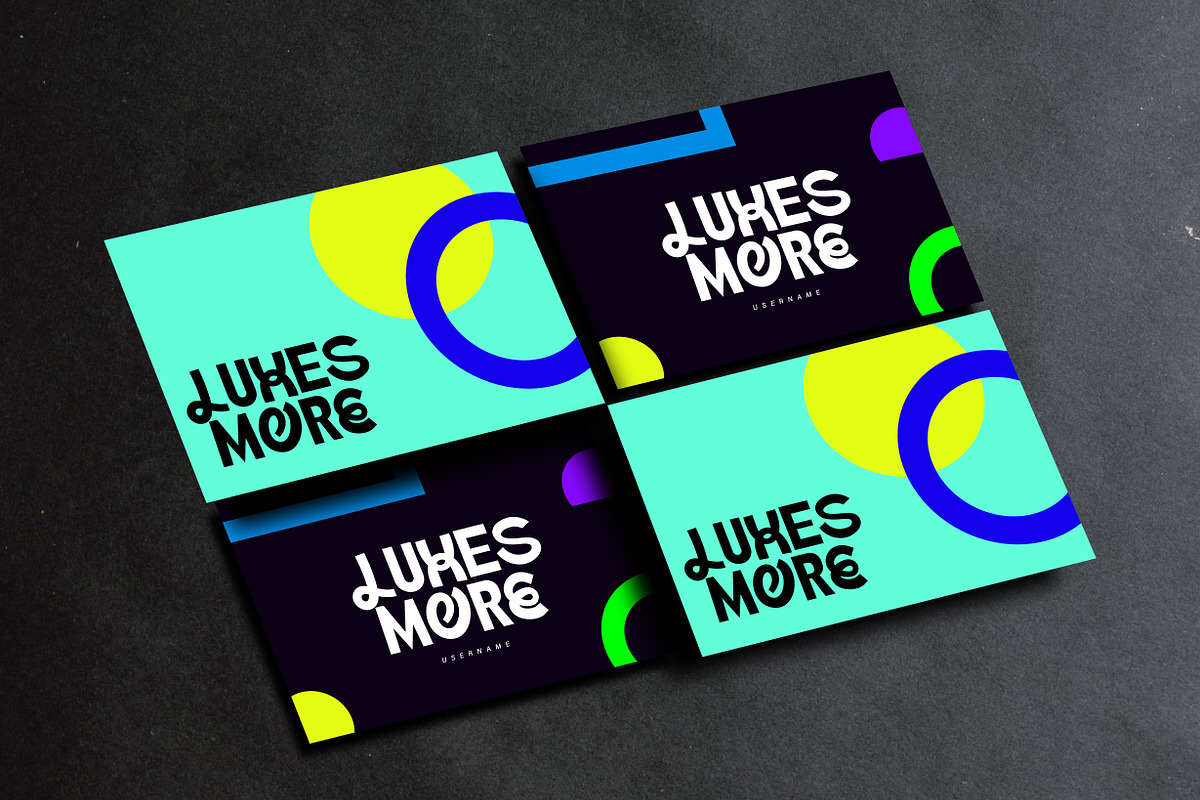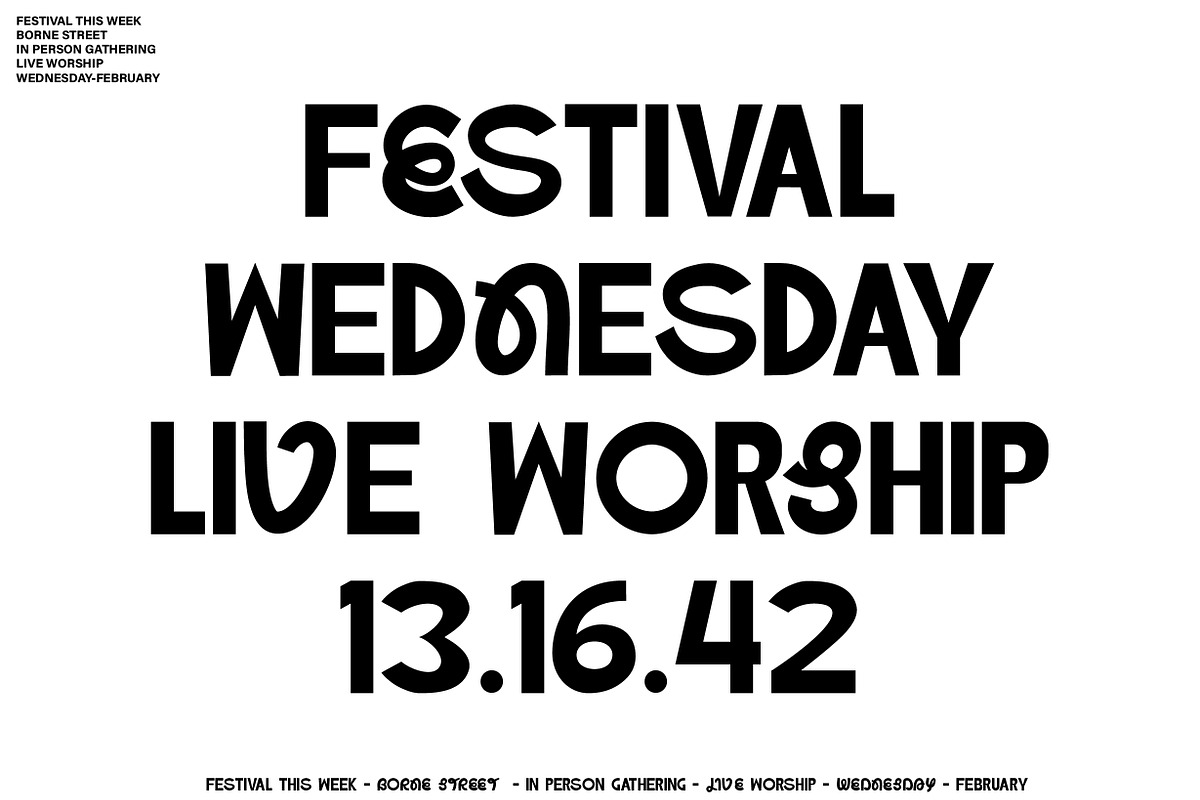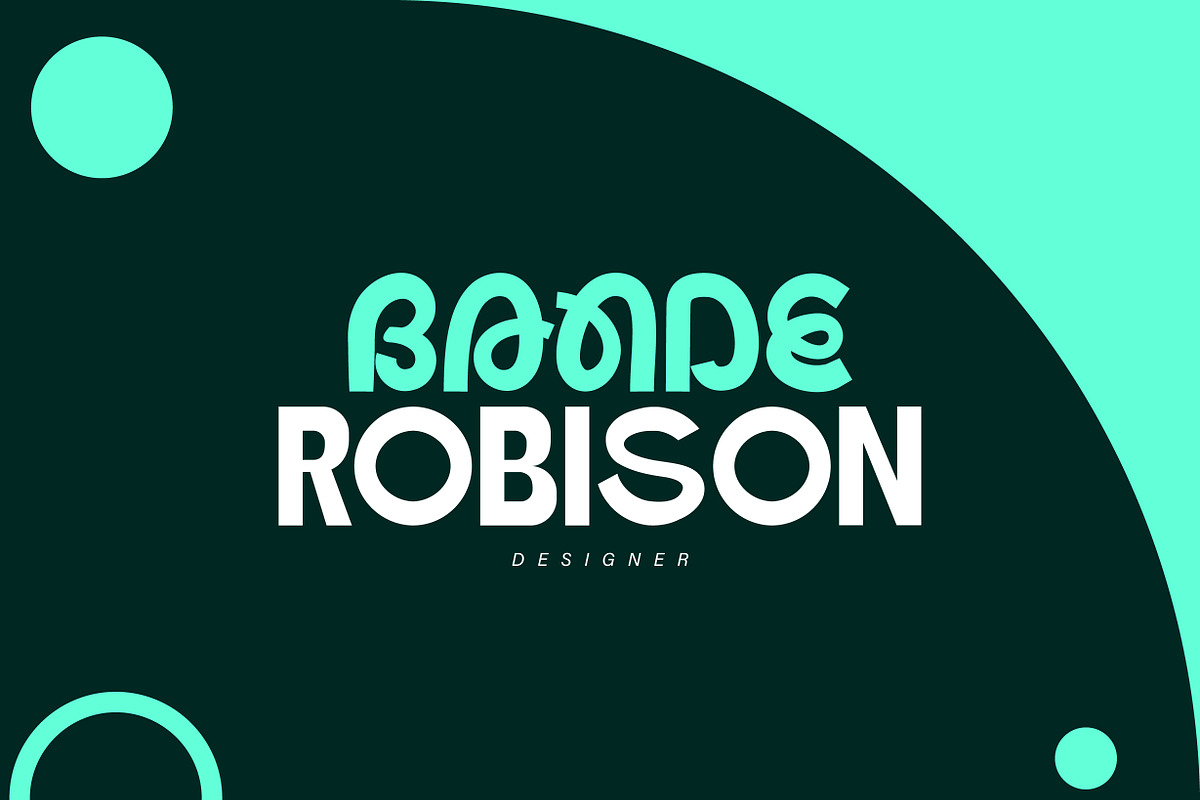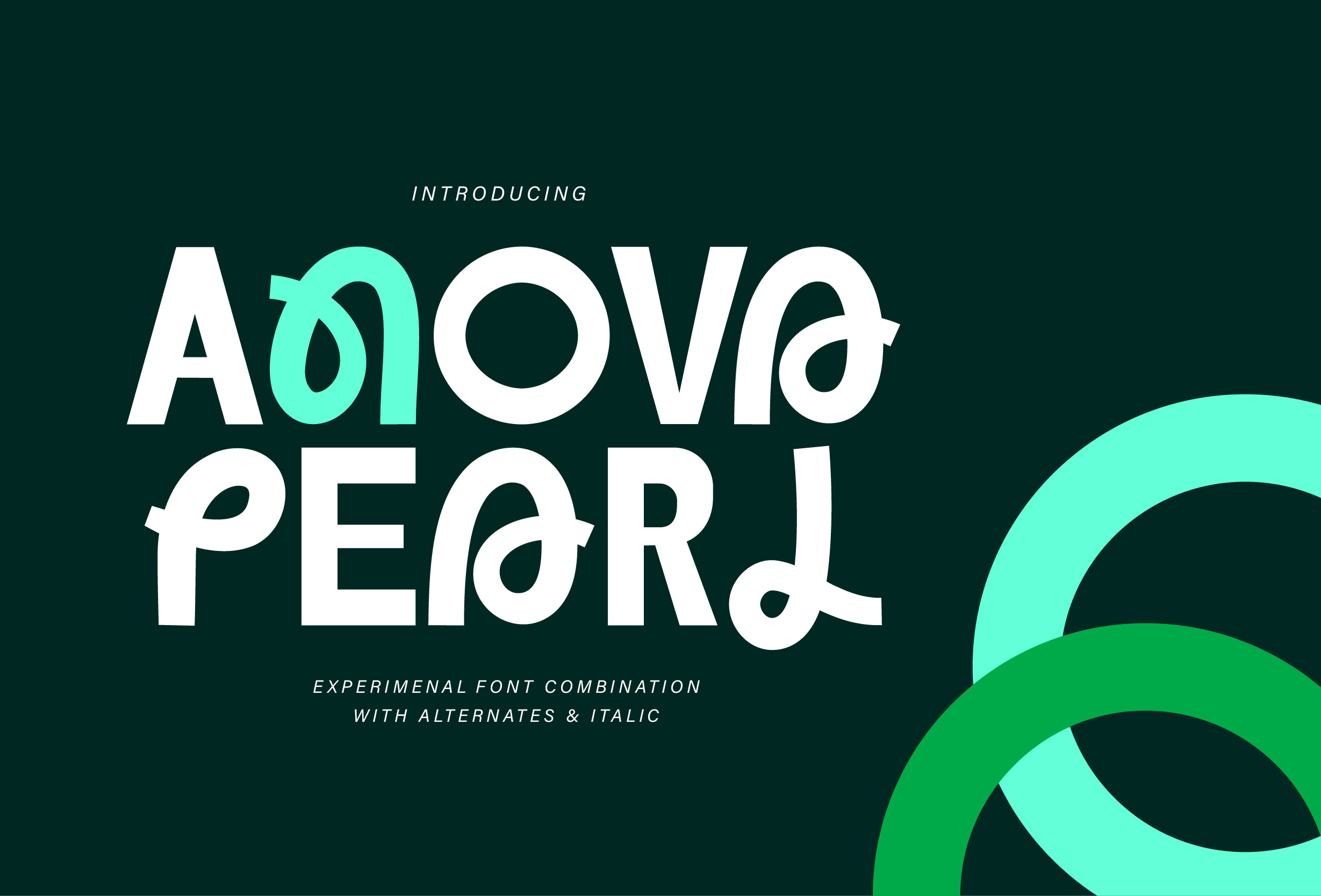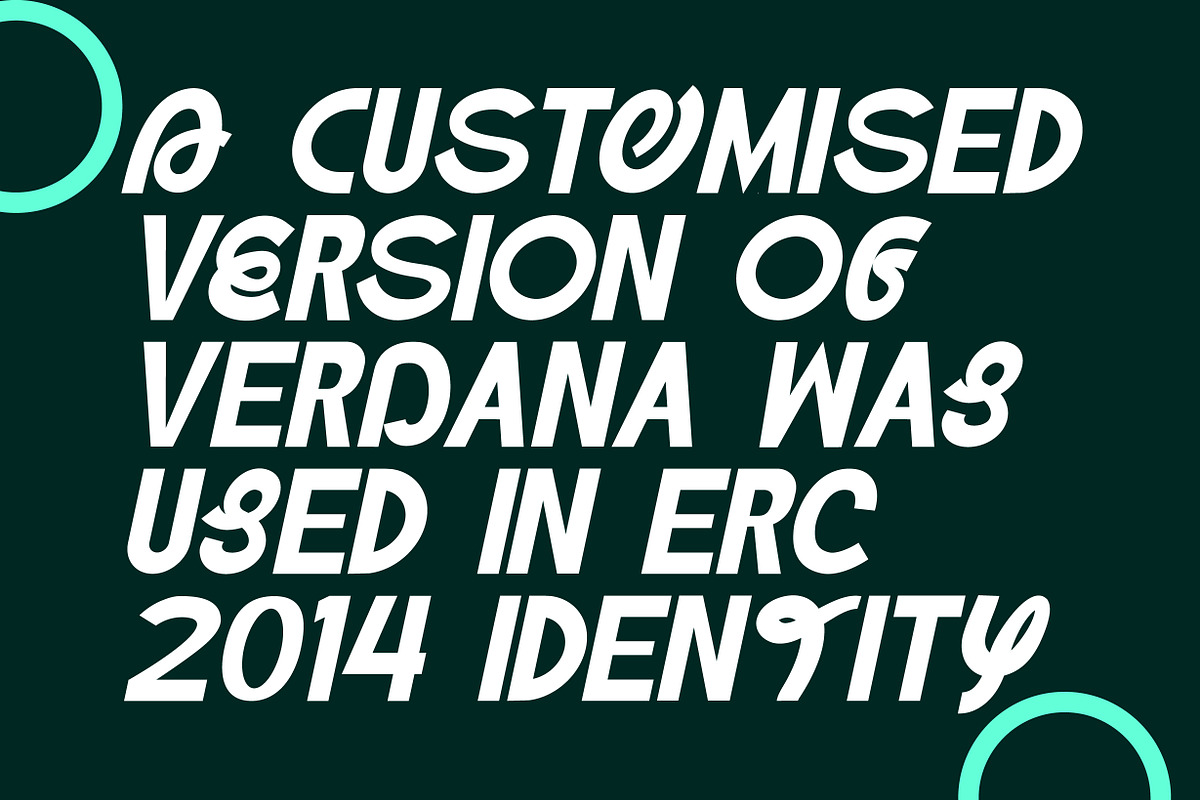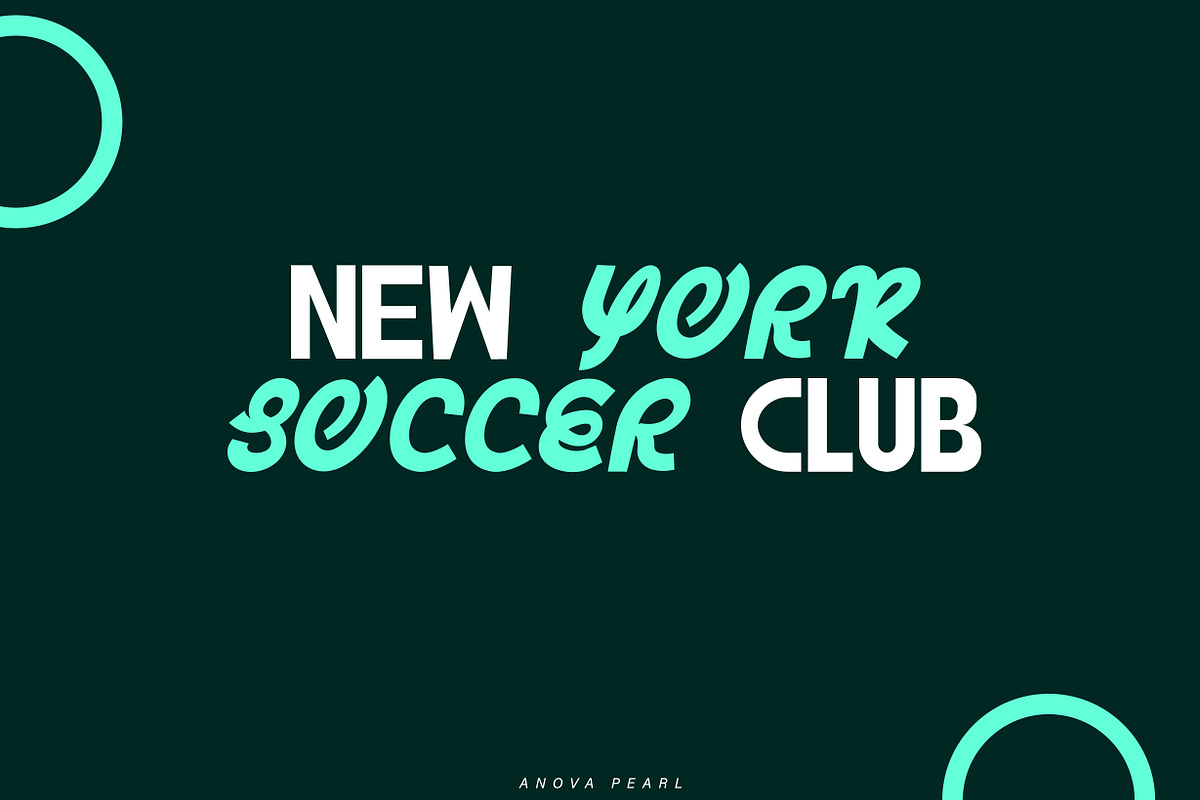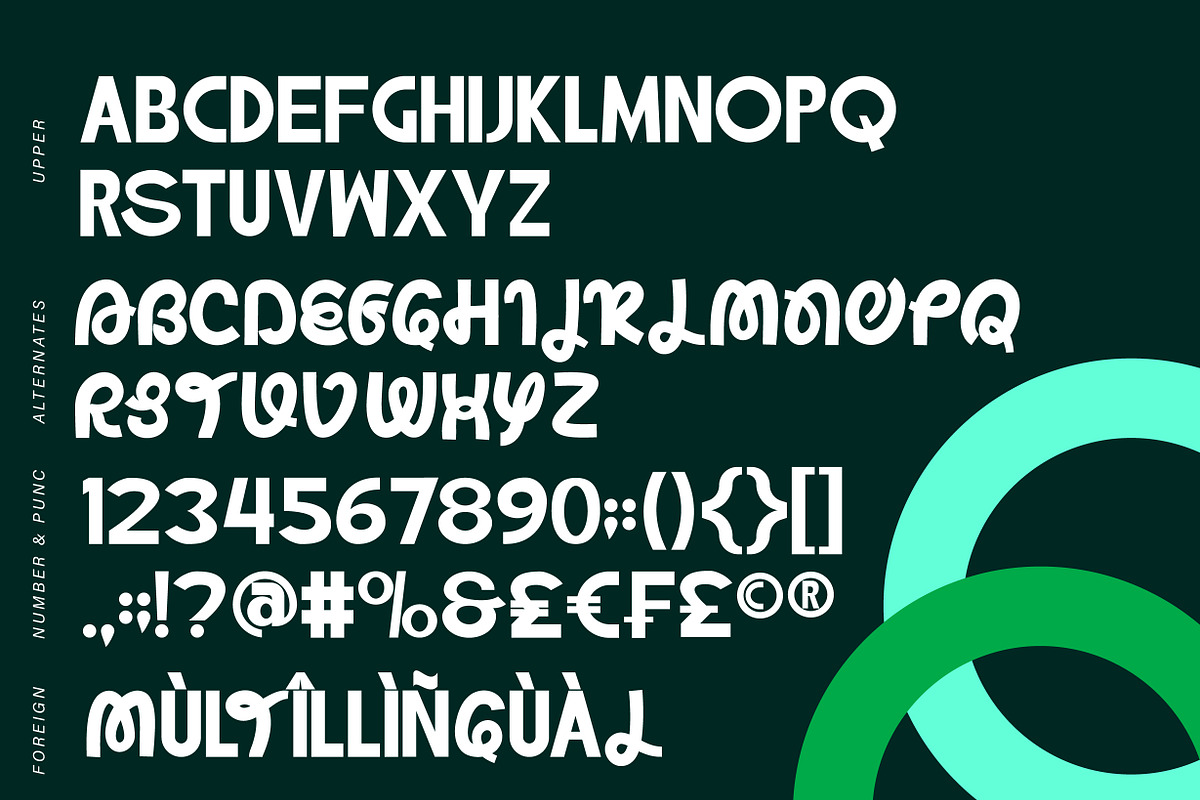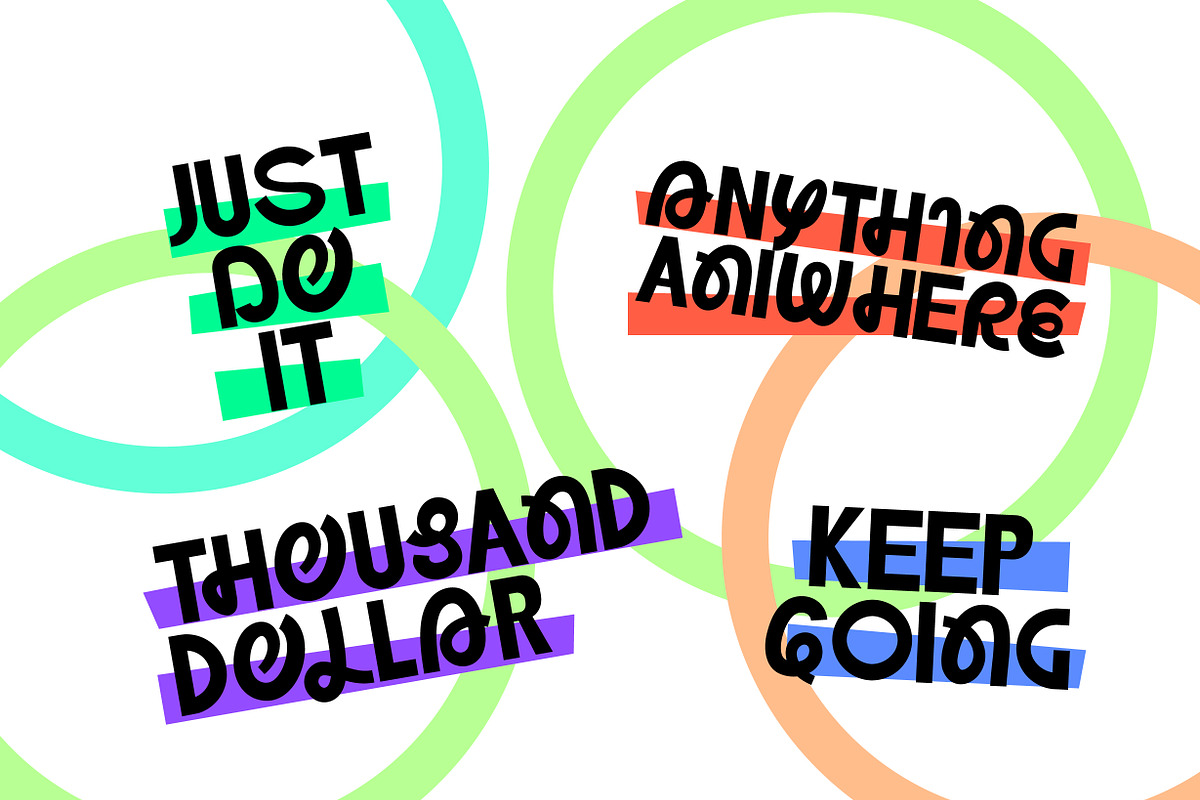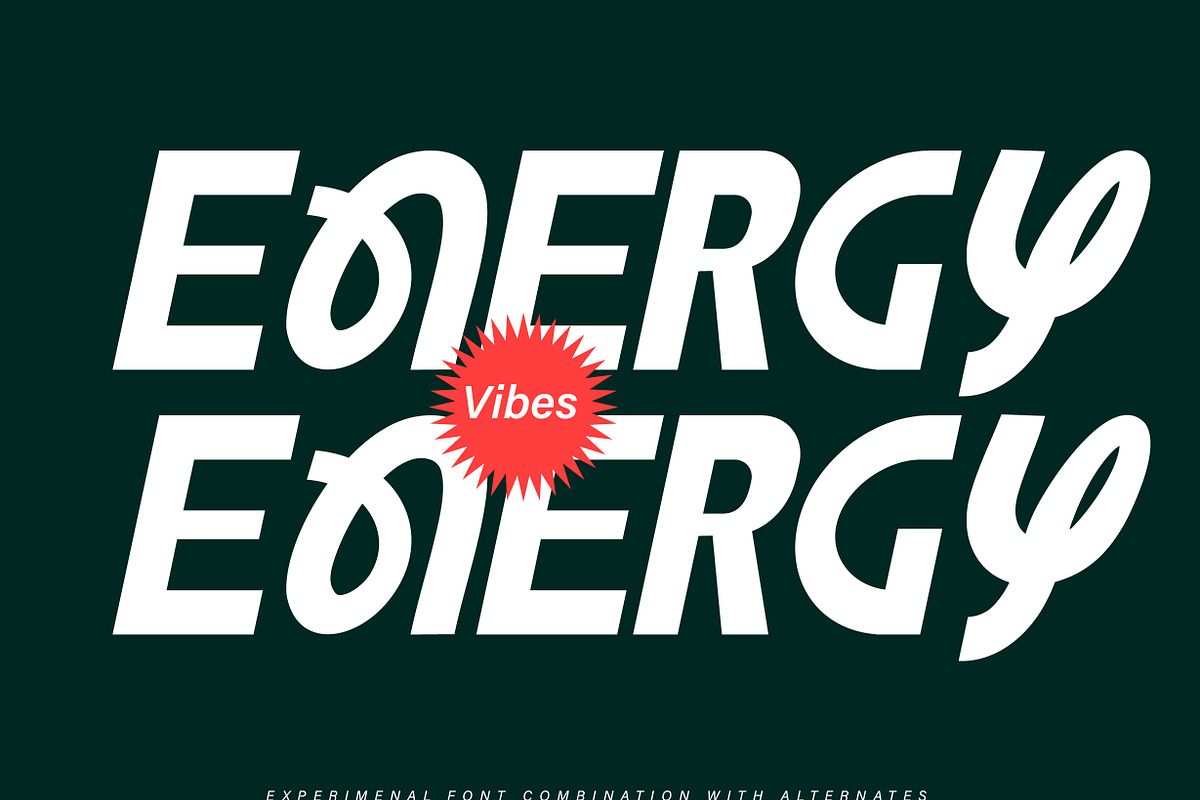
Anova Pearl - Experimental Font
Anova Pearl which has a strong design with an experimental combination. The font is a combination of two letter styles. Suitable for use in various media, book covers, posters, typography, promotions, and other digital media.
- Uppercase letters and combination
- Numbers and punctuation.